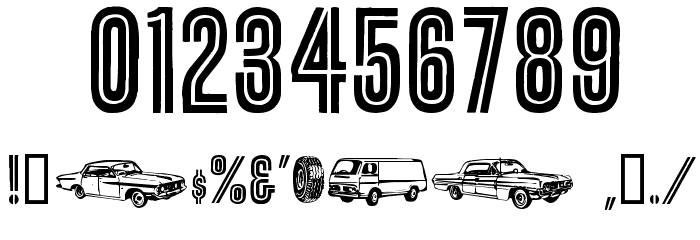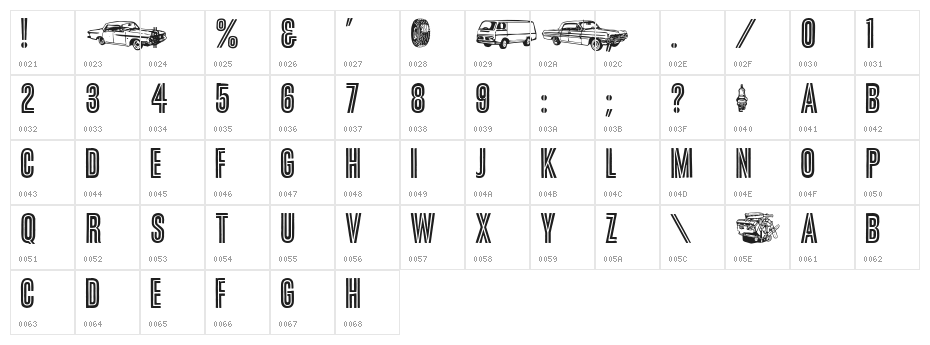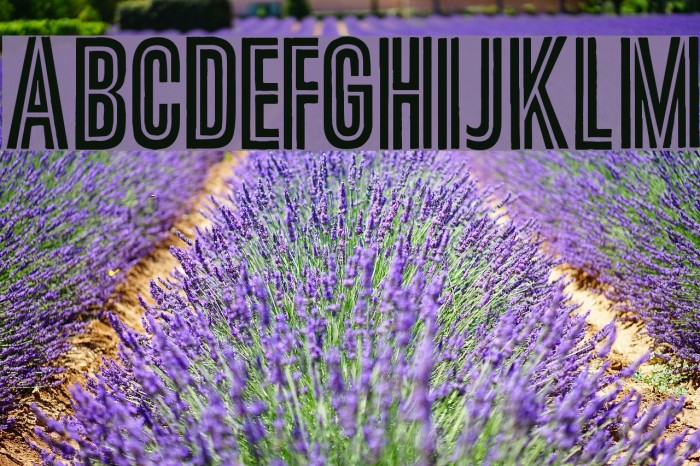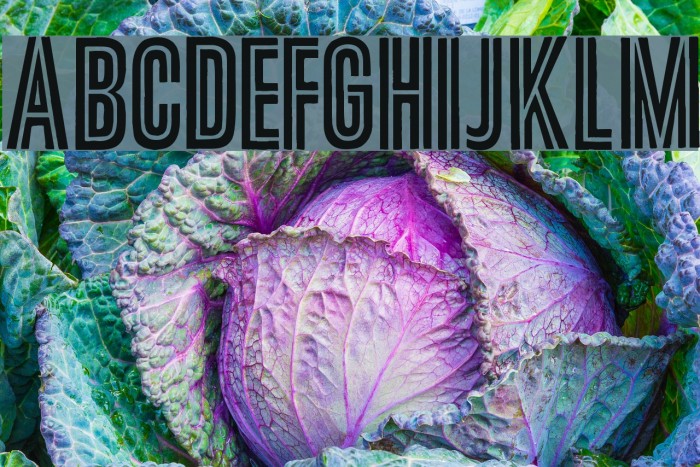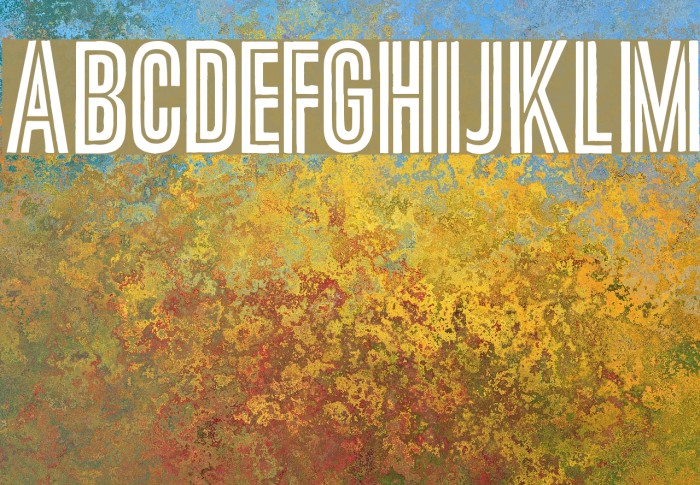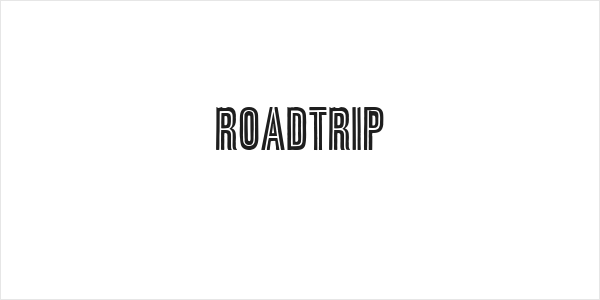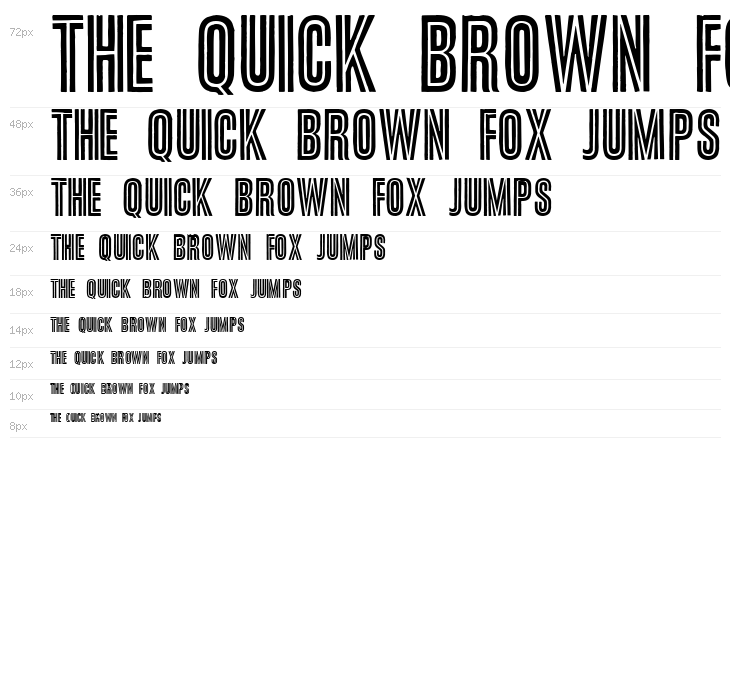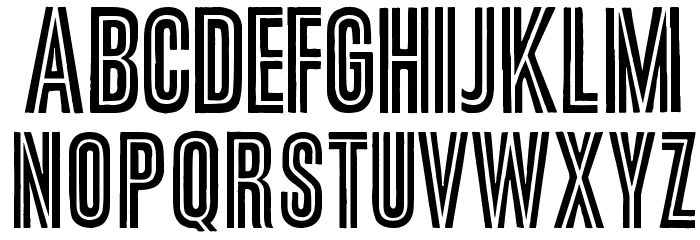
RoadTrip Font
RoadTrip Description
This font features a bold, condensed style with a strong presence, characterized by its tall, narrow letters and high contrast between thick and thin strokes. The uppercase letters are prominent and assertive, while the lowercase letters maintain a consistent style, offering a cohesive look. The numerals are equally bold, ensuring visibility and impact. Special characters are included, adding versatility to the font's application. Its design is reminiscent of vintage road signage, evoking a sense of adventure and nostalgia. The overall style is decorative, making it ideal for projects that require a standout, eye-catching typeface.
| Proposed Projects | Perfect for travel posters, vintage car shows, retro-themed branding, and signage. |